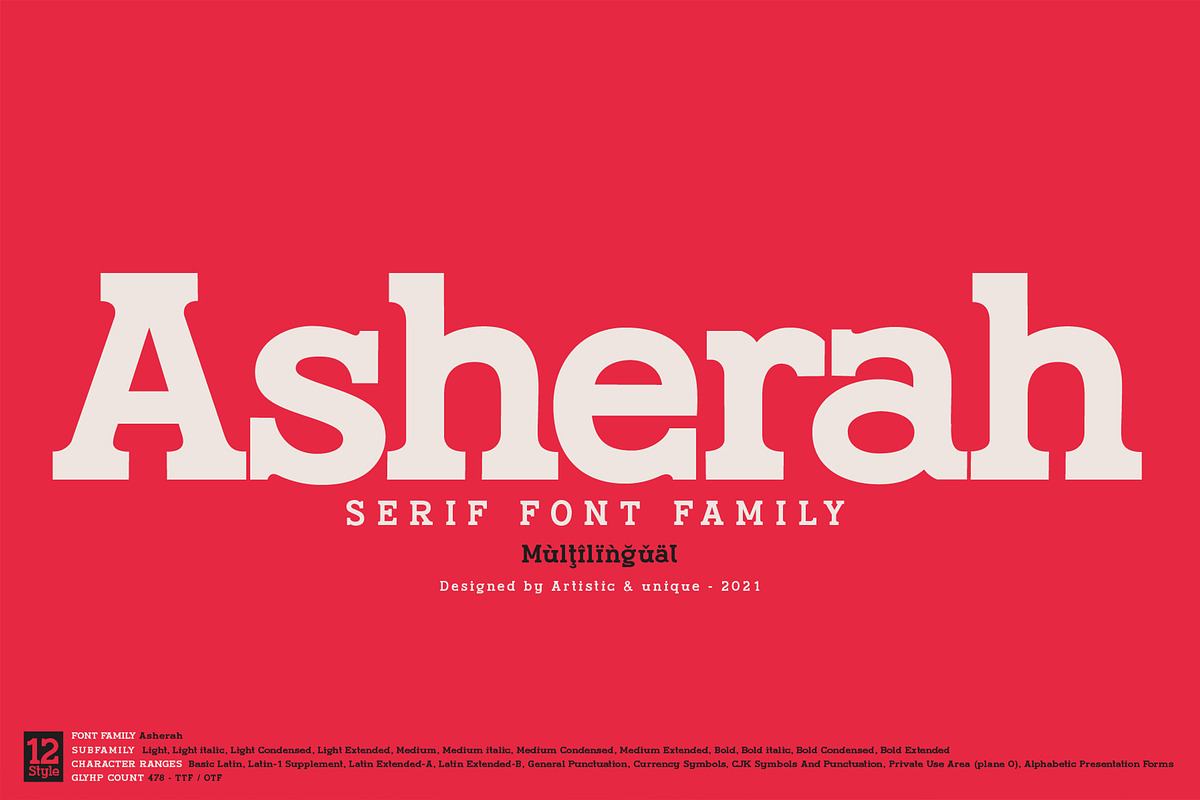
Asherah - Serif font family Free Download
Asherah – Serif Font Family Free Download
Asherah – Serif Font Family Free Download is a refined and versatile typeface collection featuring a range of elegant serif styles. With high contrast strokes, graceful curves, and sophisticated detailing, Asherah is perfect for editorial layouts, luxury branding, fashion lookbooks, wedding stationery, and upscale packaging.
The font family includes multiple weights and styles, allowing for seamless pairing between headlines, subheadings, and body text. Whether you're aiming for timeless beauty or a modern classic aesthetic, Asherah – Serif Font Family Free Download provides the flexibility and refinement needed for polished, professional design.